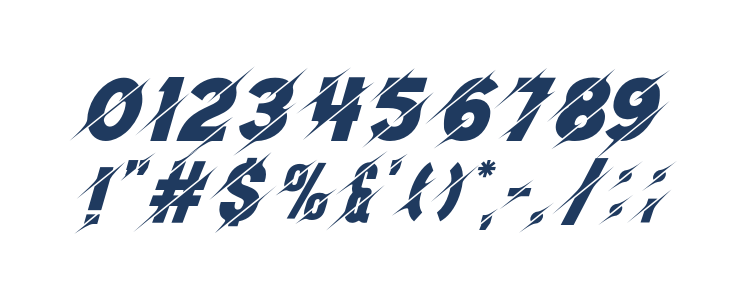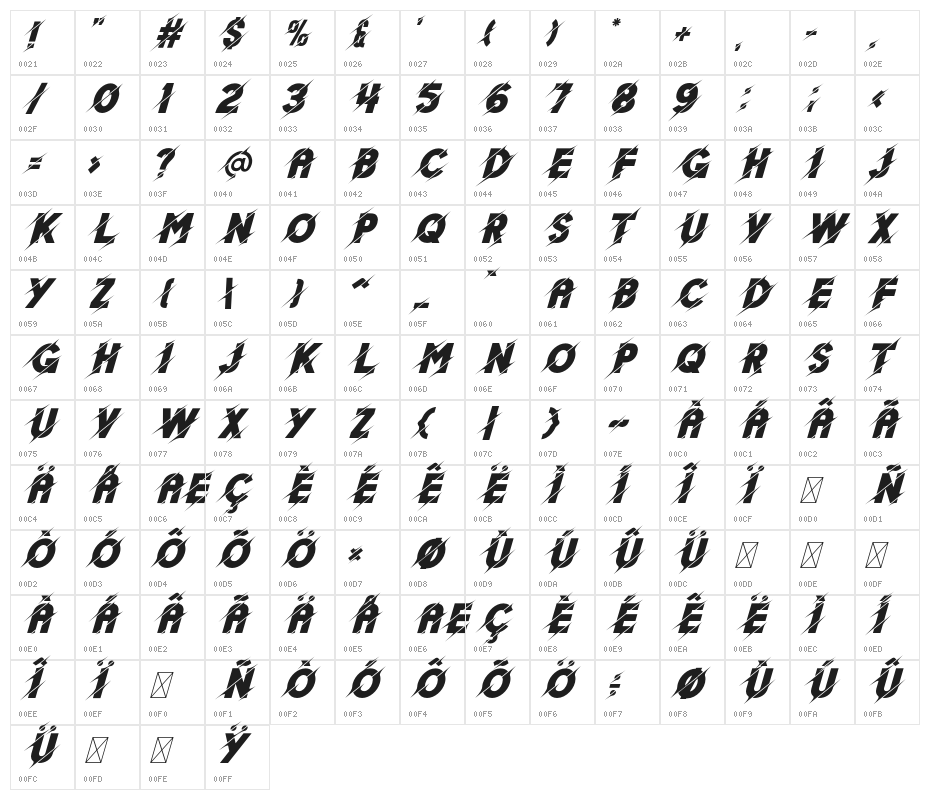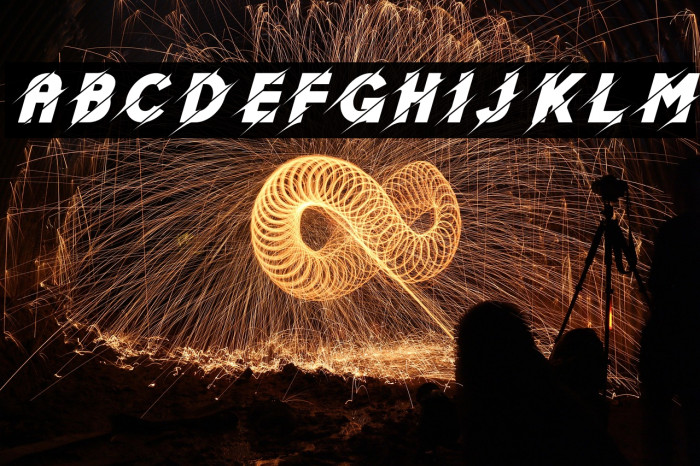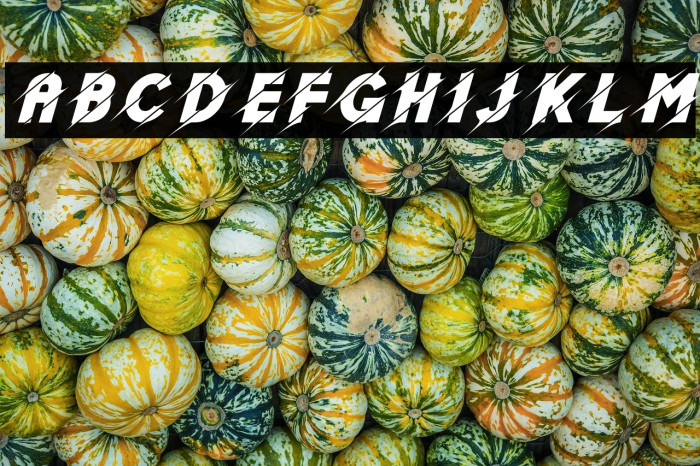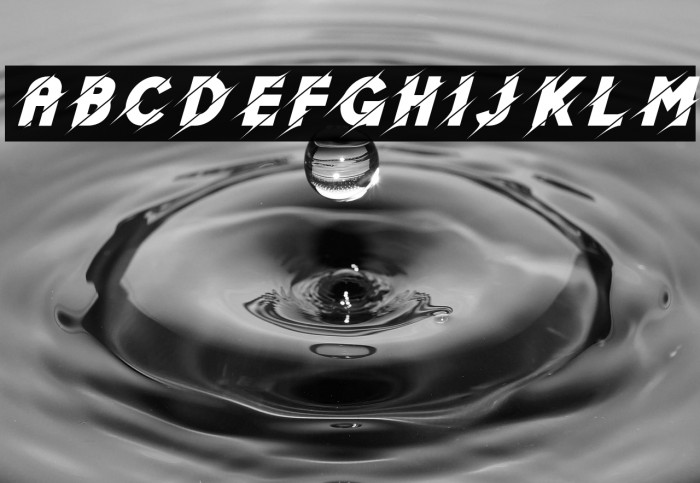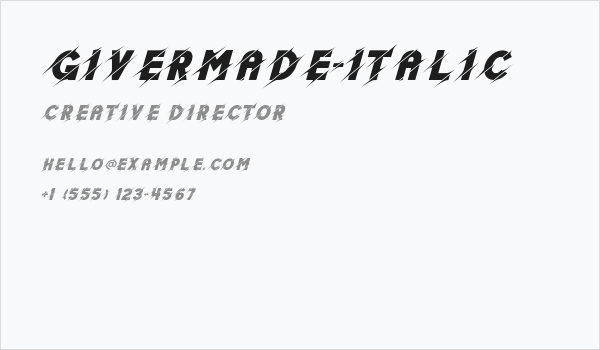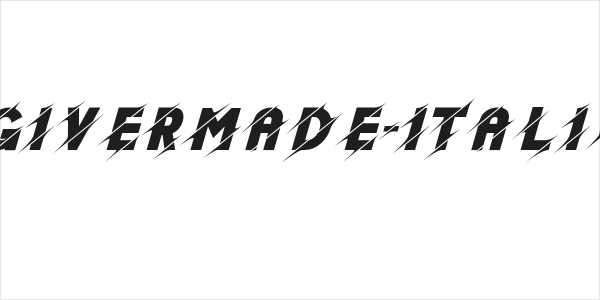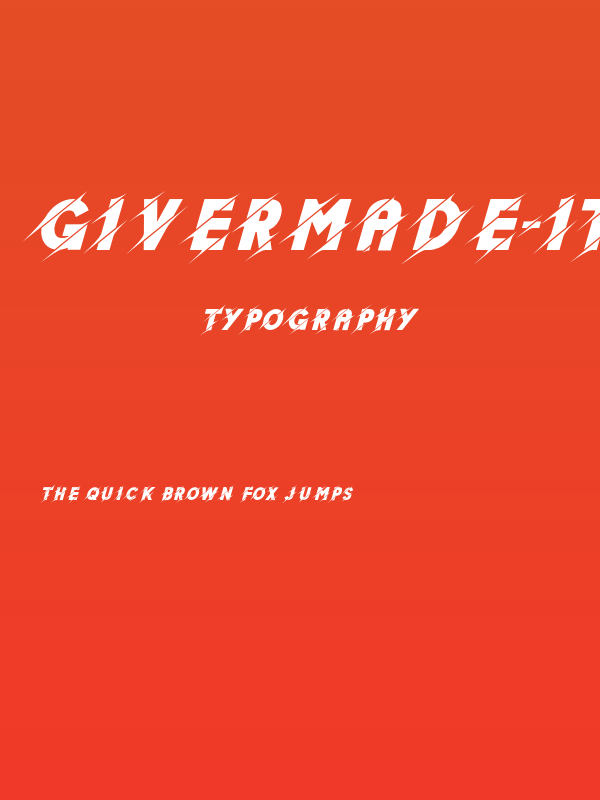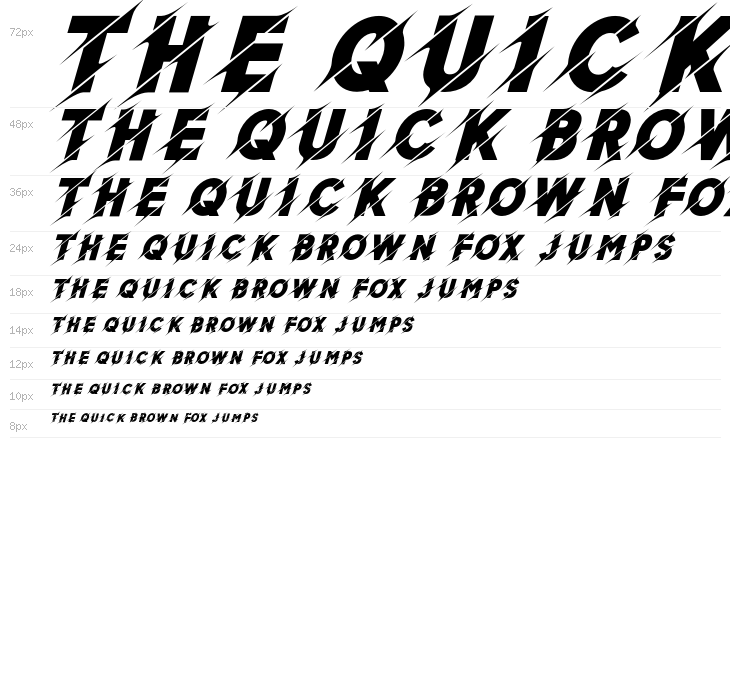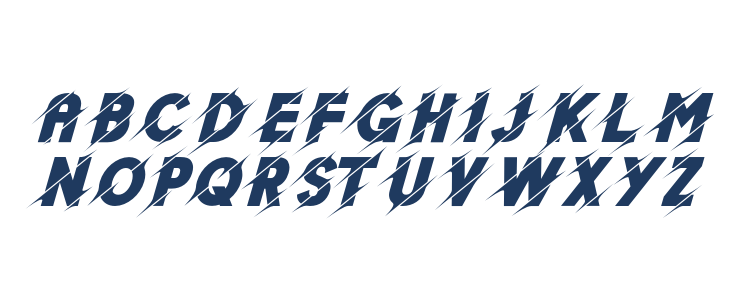
GiverMade-Italic Font
GiverMade-Italic Description
This font features a bold, italicized style with sharp, angular edges and a dynamic, energetic appearance. The letters are slanted forward, giving a sense of motion and urgency. The strokes are thick and consistent, with a high contrast between the thick and thin parts of the letters. This design is visually striking and commands attention, making it ideal for impactful headlines or branding that requires a strong presence. The character spacing is tight, enhancing the compact and cohesive look of the text. The font includes a full set of uppercase and lowercase letters, numbers, and a variety of special characters, ensuring versatility in its application.
Proposed ProjectsPerfect for sports branding, action movie posters, dynamic logos, and attention-grabbing headlines.